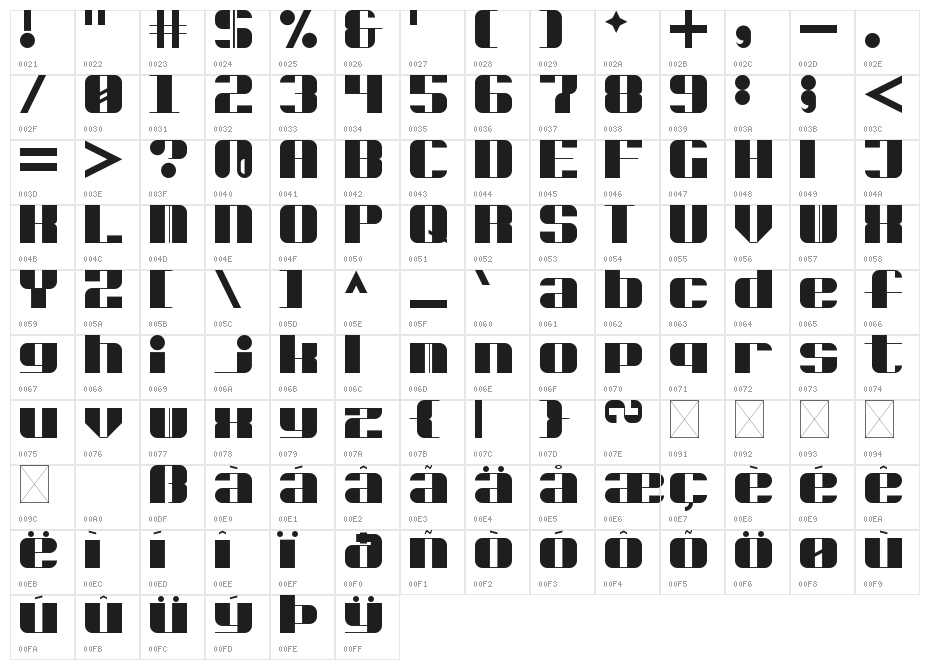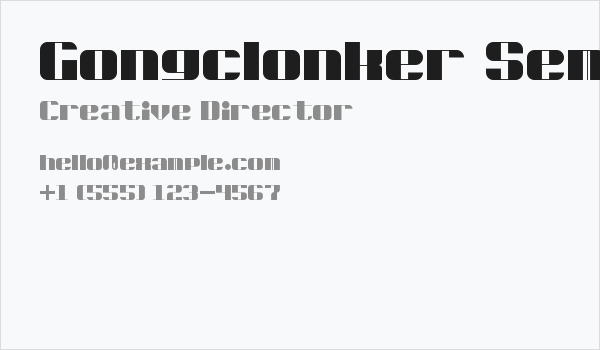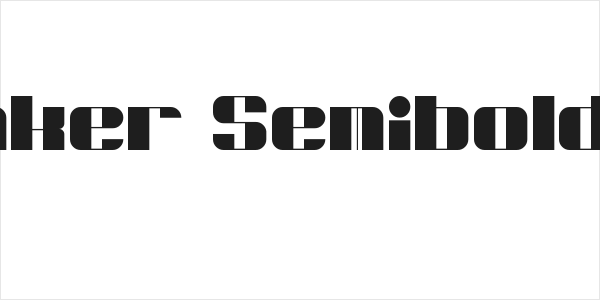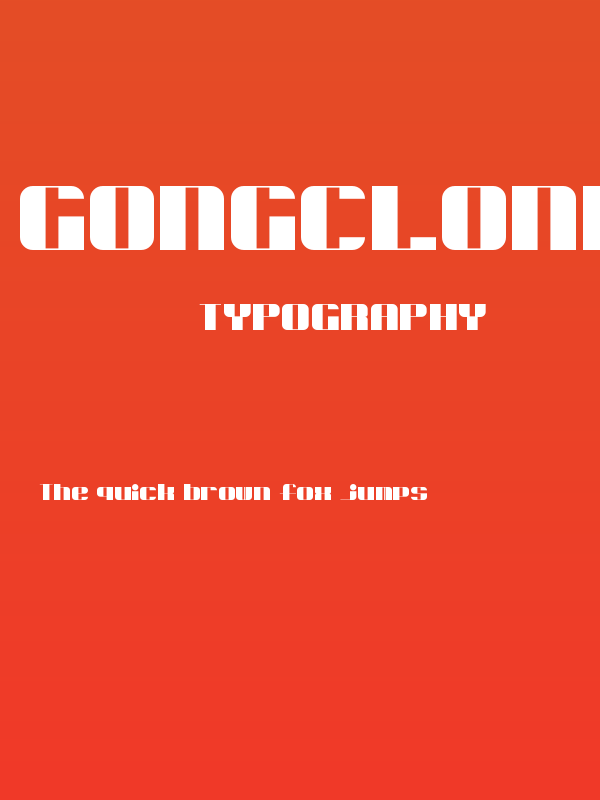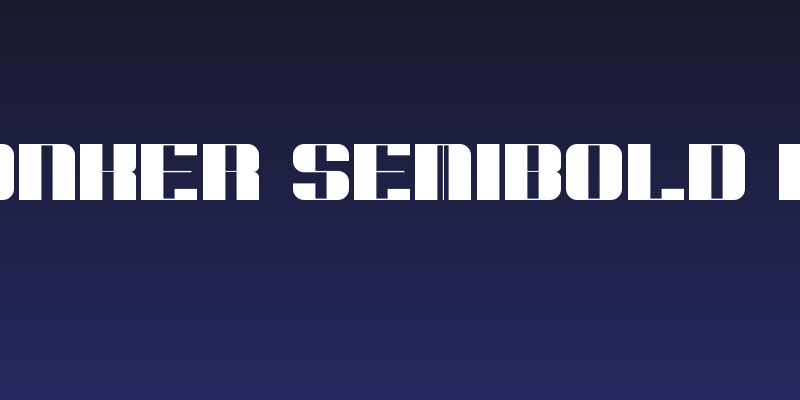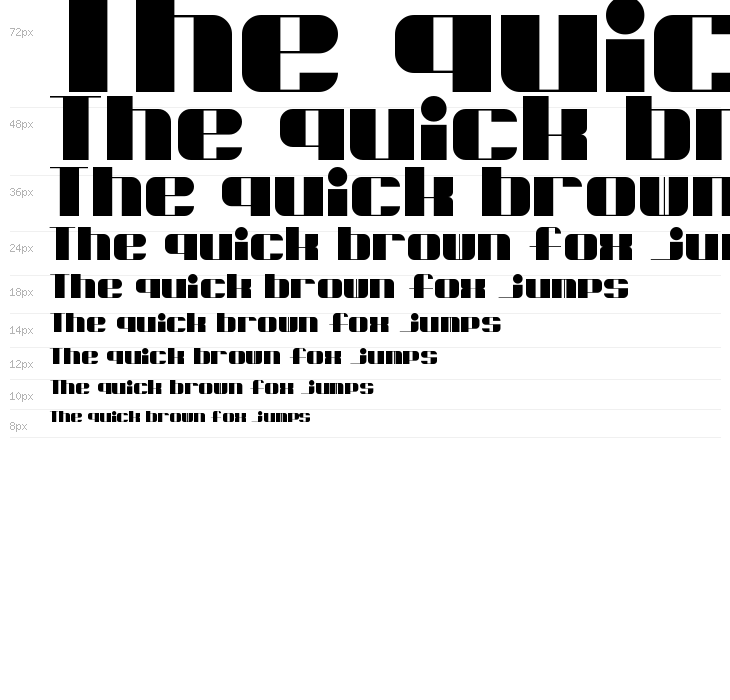
Gongclonker Semibold Regular Font
Gongclonker Semibold Regular Description
This font features a bold and geometric design with a strong, industrial feel. The characters are constructed with thick, block-like shapes, giving them a sturdy and robust appearance. The uppercase letters are uniform in height, while the lowercase letters maintain a consistent baseline, enhancing readability. The numerals and special characters follow the same bold style, ensuring a cohesive look across all text elements. The font's unique cut-out sections within each character add a modern and edgy touch, making it stand out in any design.
| Proposed Projects | Ideal for branding, posters, headlines, and any project requiring a strong visual impact. |